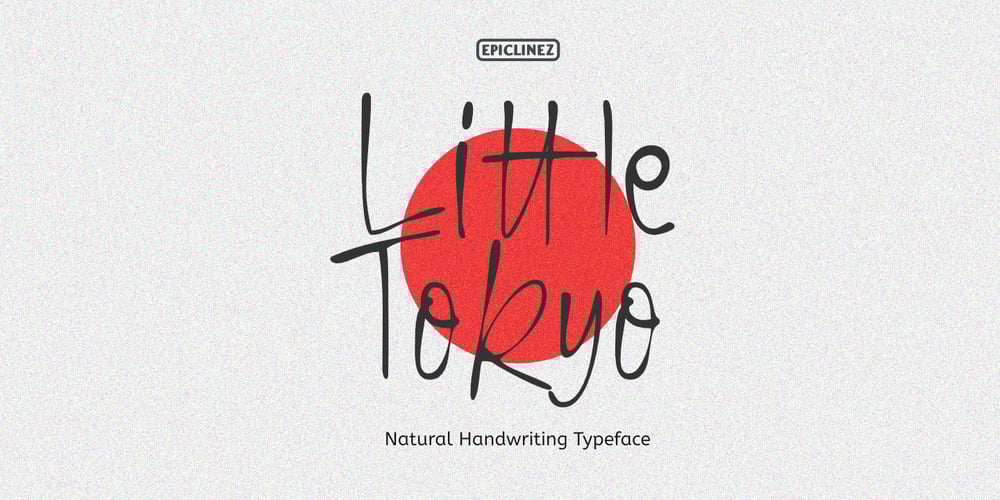
Little Tokyo Font Family was designed by Aldy Sidik and published by Epiclinez. Little Tokyo contains 1 styles and family package options. Little Tokyo is an authentic signature script font. This natural style handwritten font is suitable for various projects, such as logos, branding and packaging.